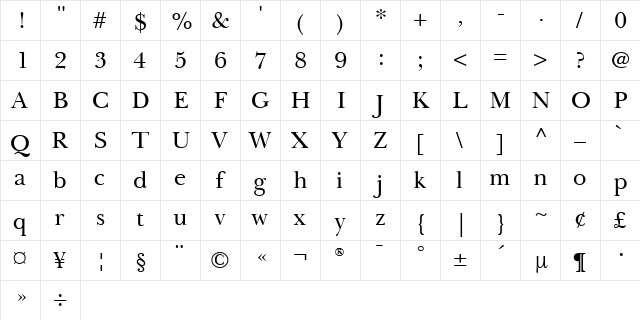
BaskervilleCyr Upright
| Style | Upright |
Design Context for BaskervilleCyr Typeface
BaskervilleCyr offers clean, dependable letterforms without strong stylistic allegiance, making it a practical choice for designers who need flexibility.